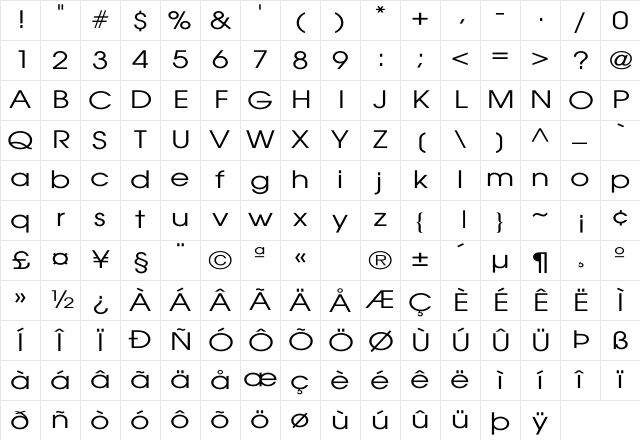
AvantGarde-Book Wd Regular
Design Context for AvantGarde-Book Wd
AvantGarde-Book Wd is a composed and adaptable typeface that performs quietly and consistently across a wide range of design contexts.
Pro Tip: Use AvantGarde-Book Wd in both headline and body roles to test its range before committing to a single application.